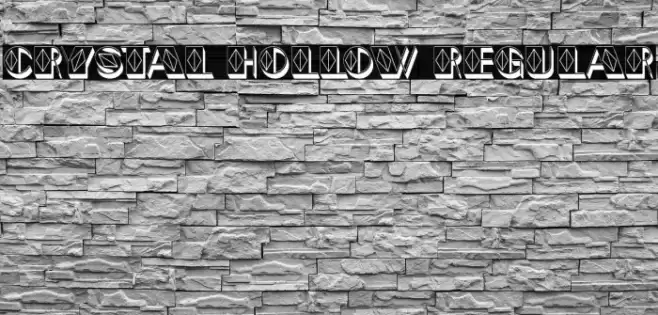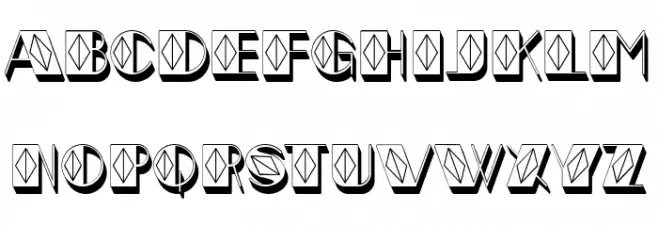
Crystal Hollow Regular Font
Crystal Hollow Regular Description
This font features a unique and eye-catching design with a three-dimensional, hollow appearance. Each character is crafted with geometric precision, incorporating diamond-shaped patterns within the letterforms. The bold outlines and shadow effects give it a striking, modern look that stands out. The uppercase letters are particularly prominent, with a consistent style that maintains readability while offering a decorative flair. The font's intricate design makes it ideal for projects that require a bold statement or a futuristic aesthetic.
A bold, geometric font with a 3D hollow design and diamond patterns from Uncategorized fonts.
- Proposed Projects: Ideal for branding, posters, album covers, and any project needing a futuristic or bold visual impact.